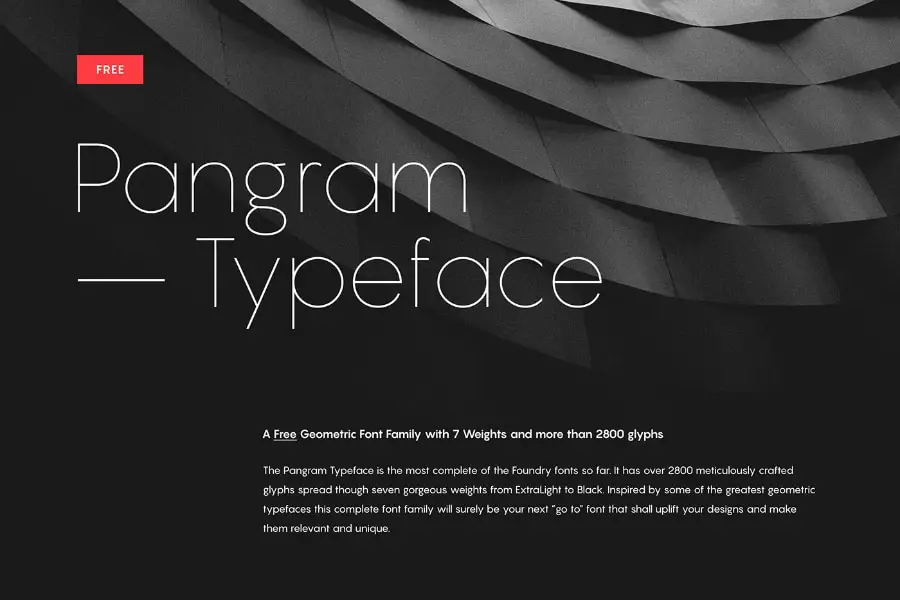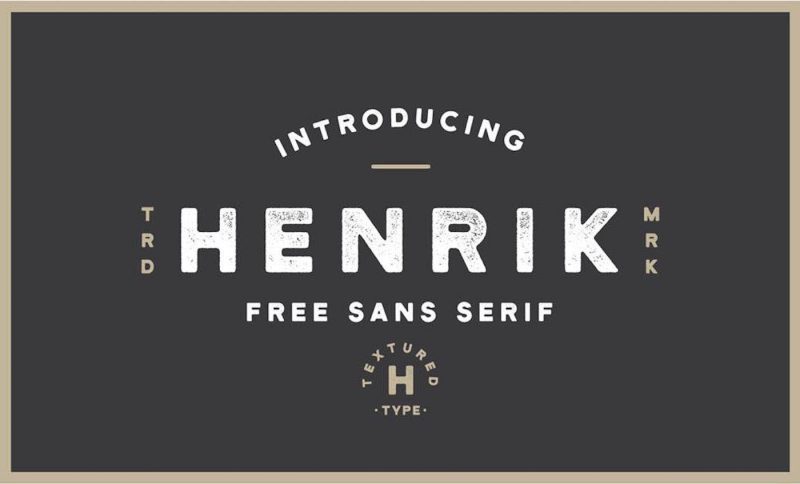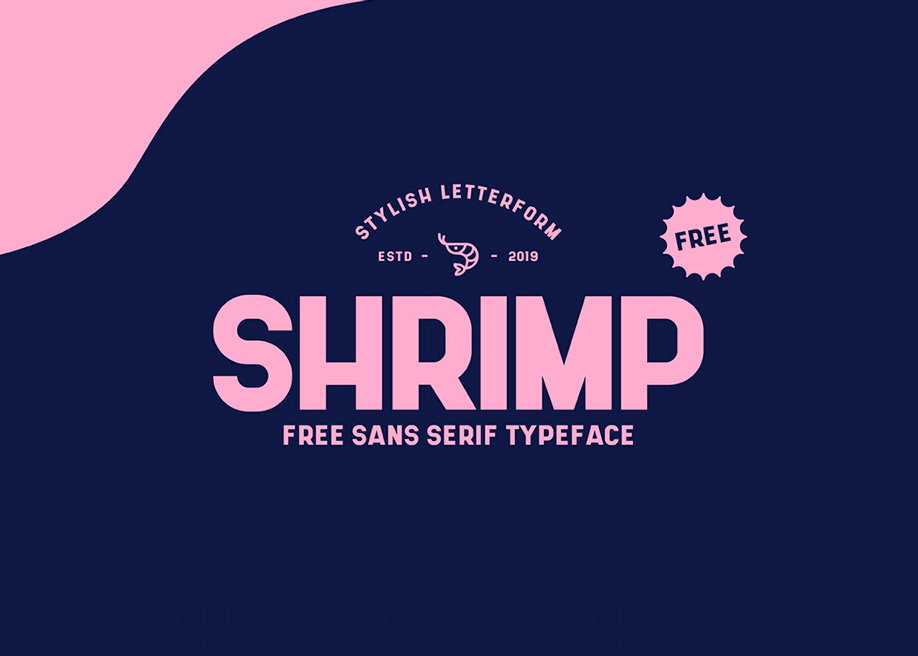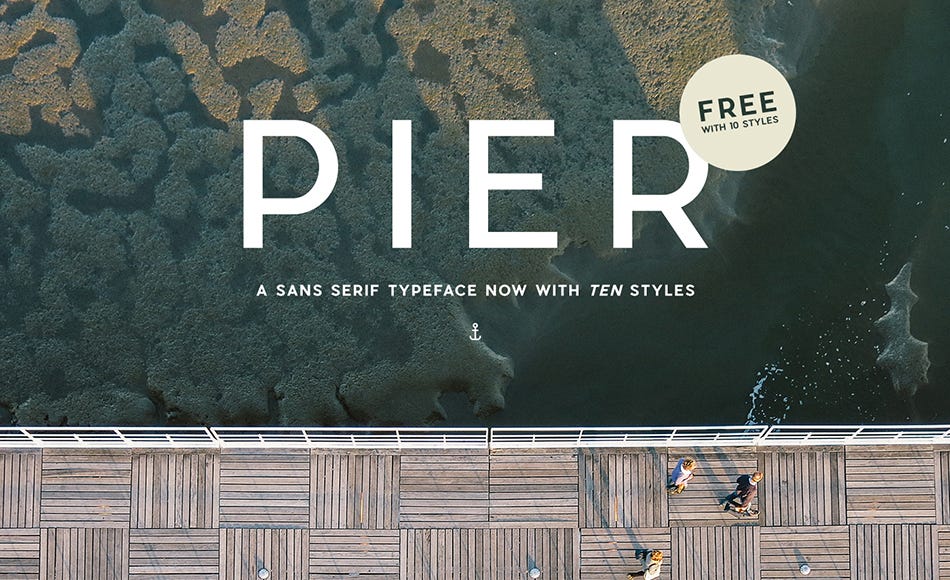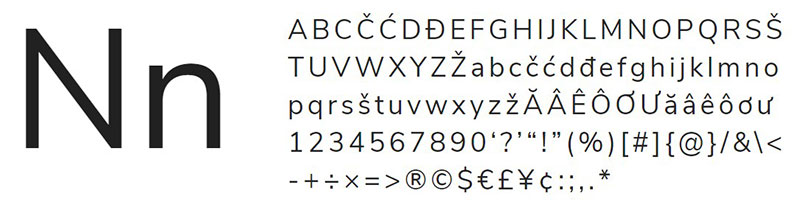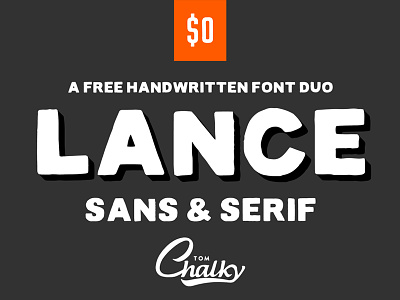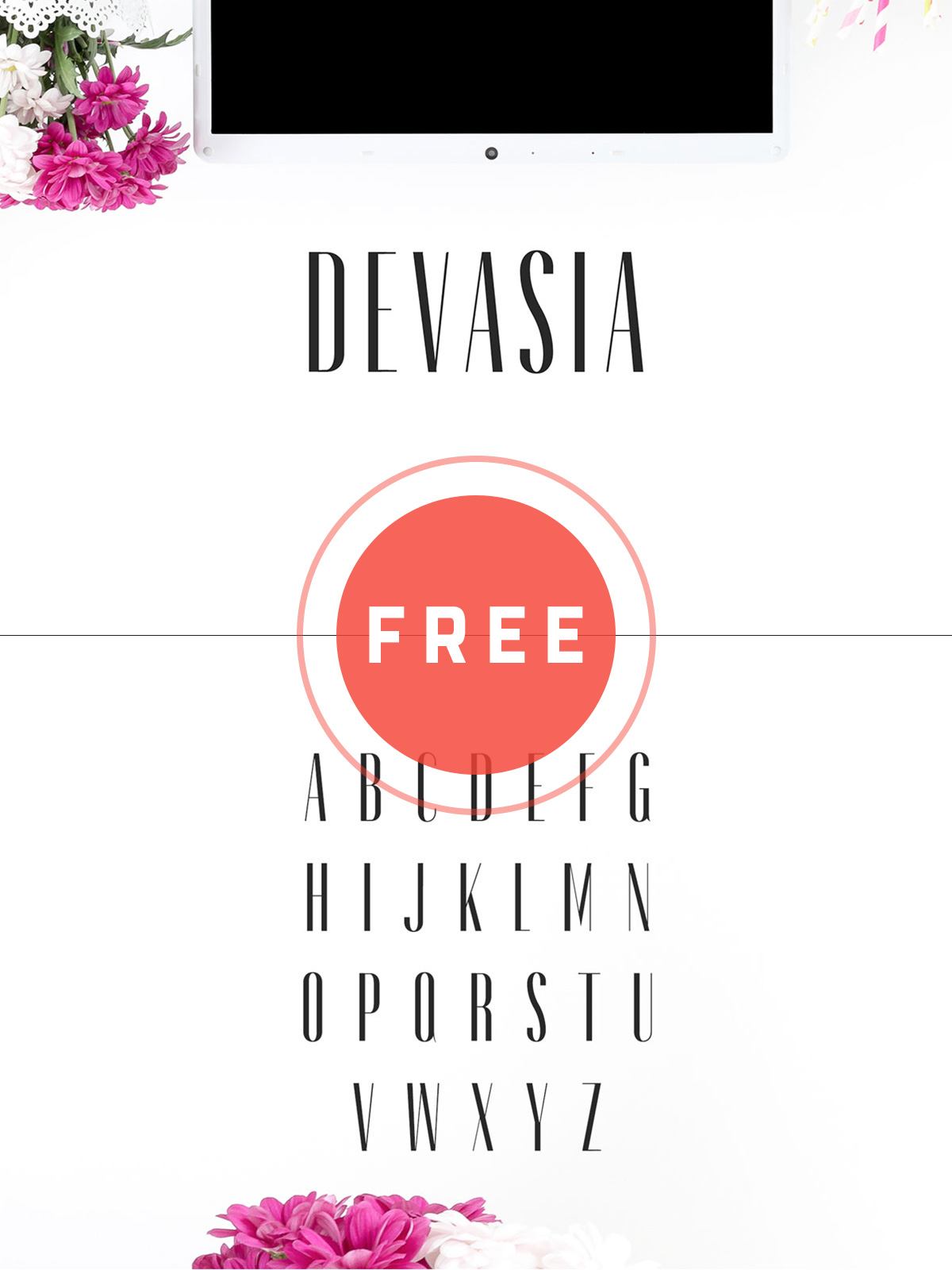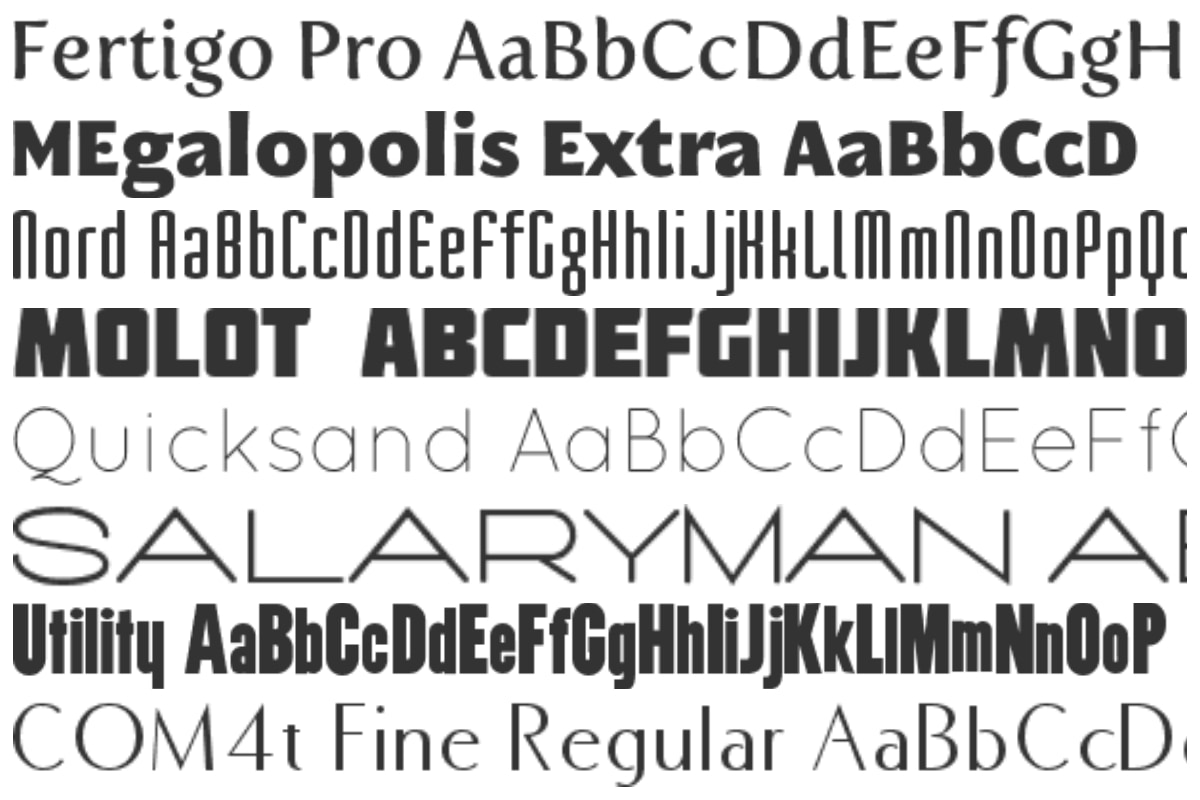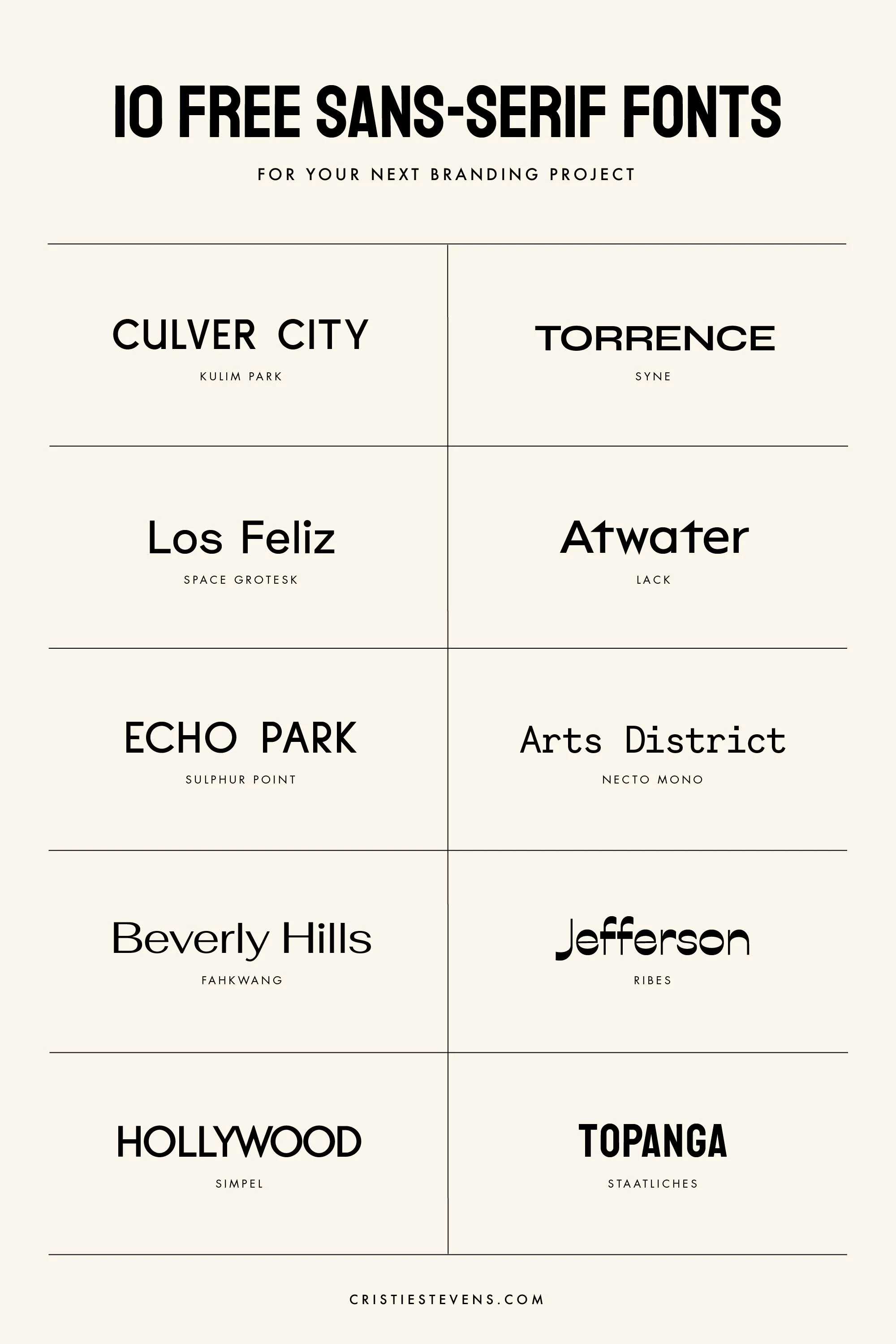
25 Best Free Sans Serif Fonts. Sans serif fonts are fonts without the embellishmentsor feetyoud find in a serif font hence the sans in the title.
Free sans serif fonts for commercial use. Sans serif typefaces are believed more contemporary than serif typefaces. This font family is designed by Christian Robertson for Google as a system font for its mobile operating system Android. Obrazec is an uncompromising industrial-style sans serif created by Ilya Zakharov.
In this compilation we are presenting a list of free sans serif fonts that you can freely use in your design projects. You can craft all kinds of titles and designs with this font. This sturdy and confident typeface is one of the best free fonts for adding strength and personality to your branding projects whether youre working on logo design promotional materials or advertising.
Modern Sans Serif Fonts Free. These fonts are free for commercial use please double-check the license before using. Citrica is a free geometric sans serif font based on the freshness and the organic shapes of the citrus fruits.
Wow look at all these sans-serif alternatives to Arial Futura Helvetica and Verdana. Font Squirrel is your best resource for FREE hand-picked high-quality commercial-use fonts. Roboto Sans Serif Font Roboto a neo-grotesque sans-serif font family free download for personal and commercial use.
These fonts are perfect to give your next design project a modern touch. Sans Serif Free for commercial use OFL. Sans serif fonts began growing slowly prior to the 18th century but were not used extensively.
Sans serif is a contemporary typeface without serifs. In 1816 William Caslon IV established a sans serif typeface known as Two Lines British Egyptian which has been commissioned by a certain client. So go ahead and find the perfect font for your design.
Now lets take a look at the best sans serif fonts free to download and use. The typeface has a simple yet appealing personality. Some of them are free for personal use only while others are free for both commercial and personal use so do check the ones you are interested in carefully before you download.
It includes 12 different styles of fonts featuring more than 2700 glyphs. Averta is a geometric sans serif family made by the award-winning designer Kostas Bartsokas. We have 3 free Sans Circular Modern Sans-serif Fonts to offer for direct downloading 1001 Fonts is your favorite site for free fonts since 2001.
And while serif fonts lend a traditional look to designs sans serif fonts feel more modern sleek and sophisticated compared to others making them a great choice for more creative businesses. These fonts and font families suited for modern eye-catching design both display and text use and especially logo and branding. Alegra Free Minimal Sans Font This beautifully elegant and minimal font is completely free for you to use with your personal and commercial projects.